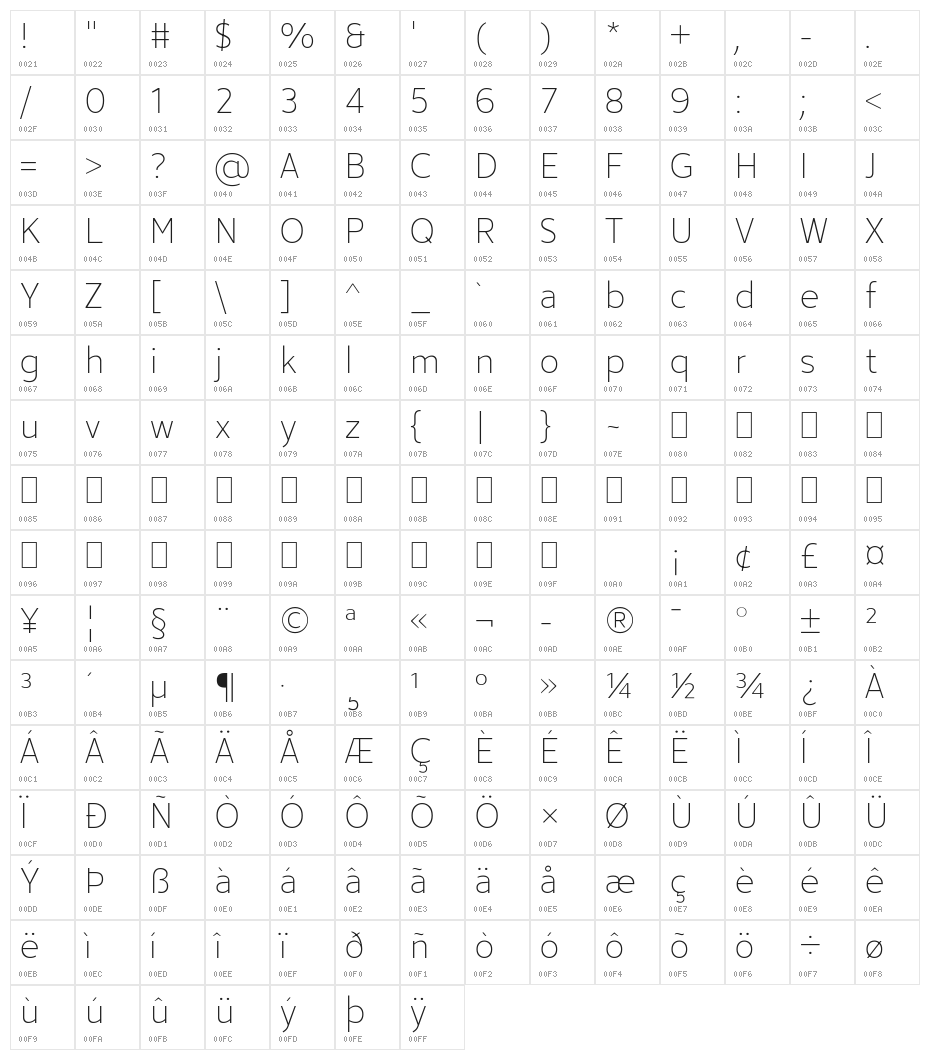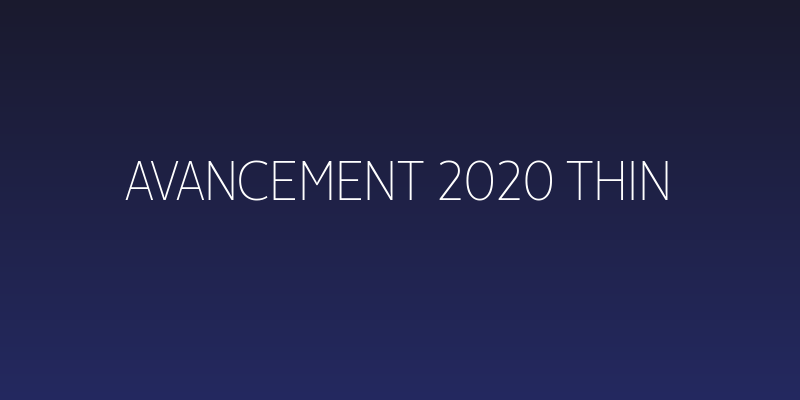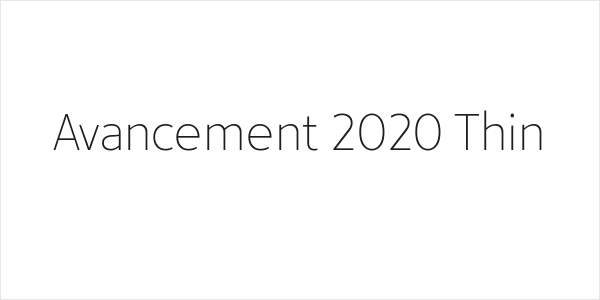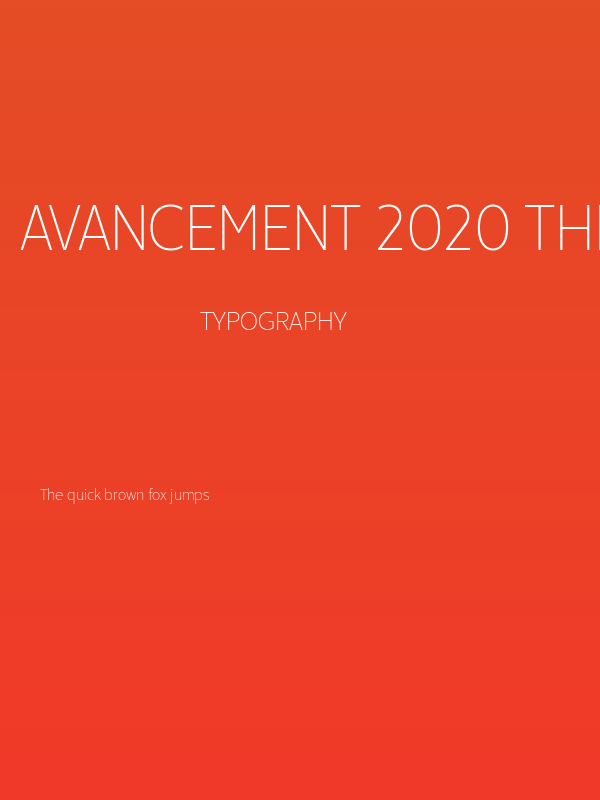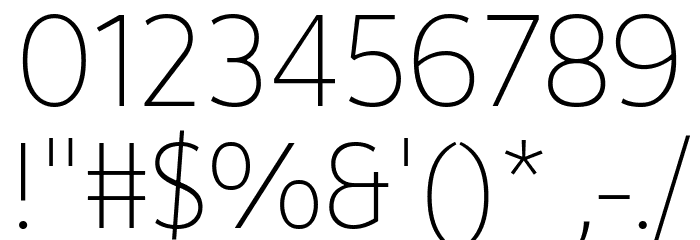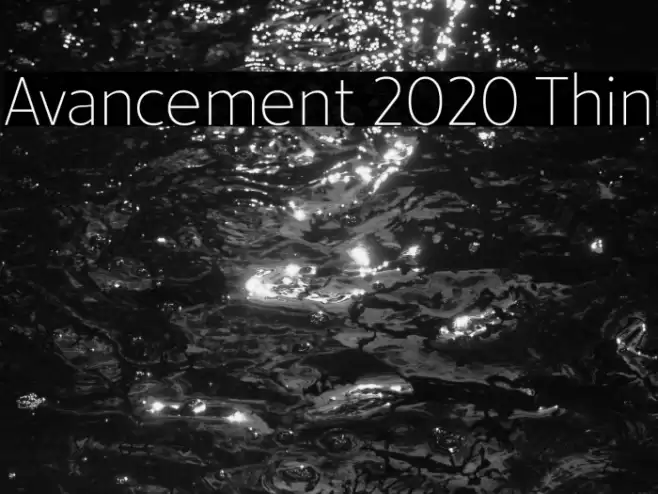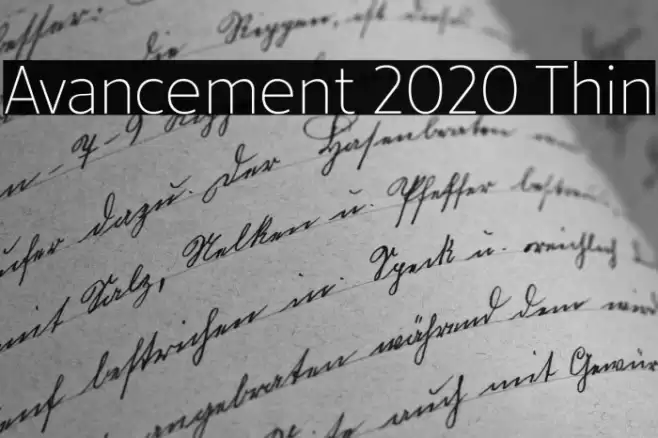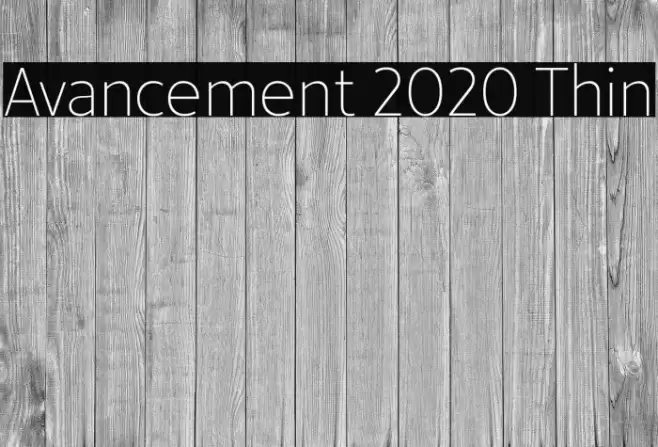
Avancement 2020 Thin Font
Avancement 2020 Thin Description
This font features a clean and modern design with a thin, elegant stroke. The characters are well-proportioned, offering a sleek and sophisticated appearance. Its geometric shapes and minimalistic style make it highly versatile for various design applications. The uppercase and lowercase letters maintain a consistent height, contributing to a harmonious visual flow. The numerals are clear and legible, while the special characters are distinct and well-integrated into the overall design. This font's simplicity and clarity make it suitable for both digital and print media.
| Use Case | Headlines, Body text, Logos |
| Proposed Projects | Ideal for branding, editorial design, websites, and minimalist posters. |